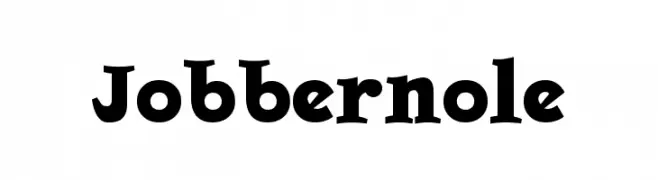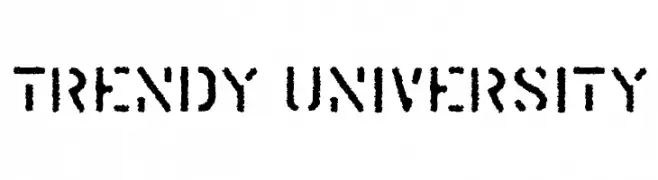
A bold, playful font with circular cutouts, perfect for creative projects.
( Fonts by Astigmatic One Eye Typographic Institute - Brian J. Bonislawsky - astigmatic.com )
A bold, playful handwritten font with dynamic strokes and a casual style.
( Fonts by Emil Bertell - www.fenotype.com )
A bold, 3D geometric font with strong outlines and a modern, industrial feel.
( Fonts by Levi Halmos )
A bold, geometric font with a futuristic and modern style.
( Fonts by Rob Dobi - Toxic Type - www.dobi.nu )
A bold, distressed font with a grunge-like, graffiti-inspired style.
Bold, stencil-like font with a rugged, distressed appearance.
( Fonts by Uddi Uddi )
A bold, high-contrast serif font with a dynamic and impactful style.